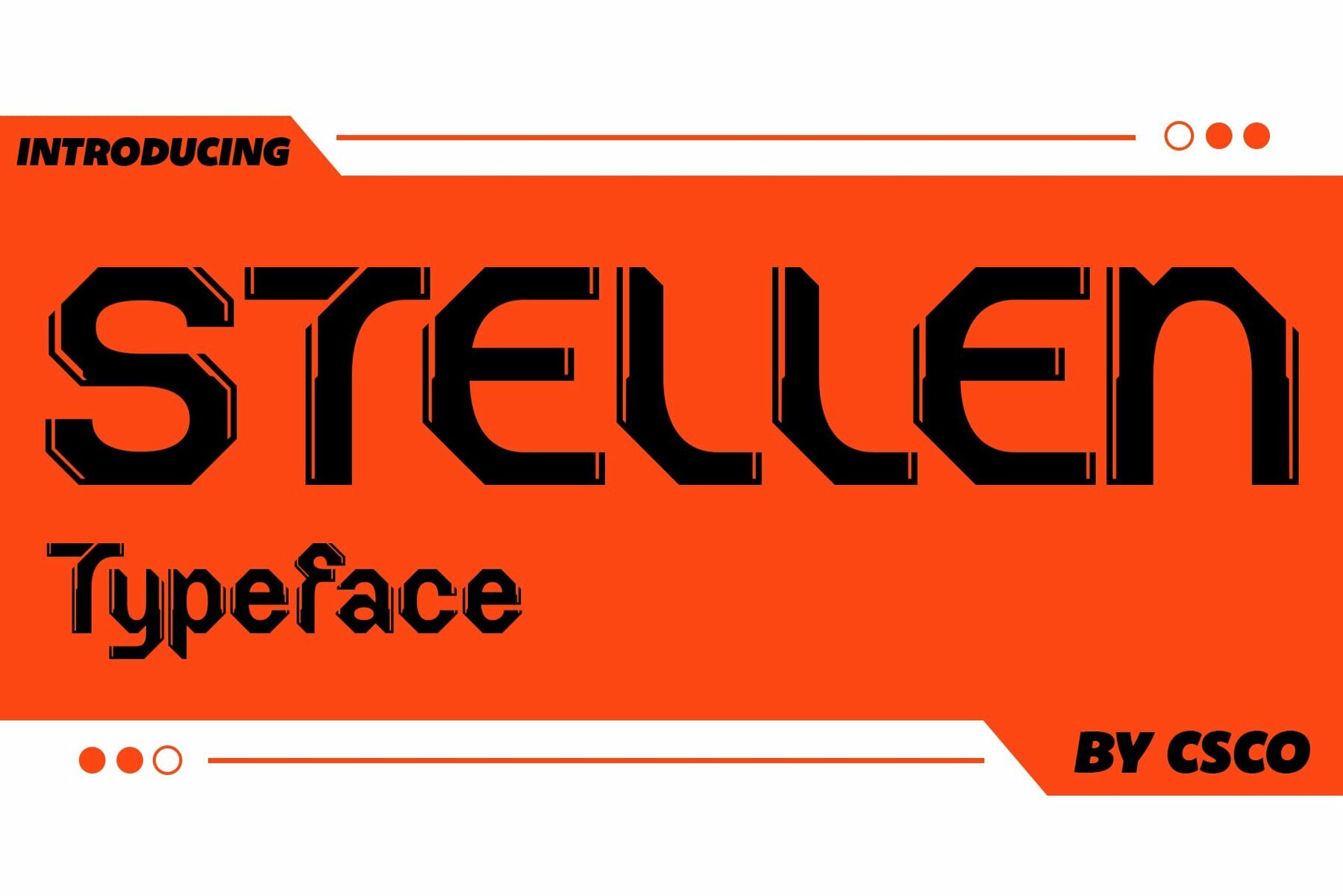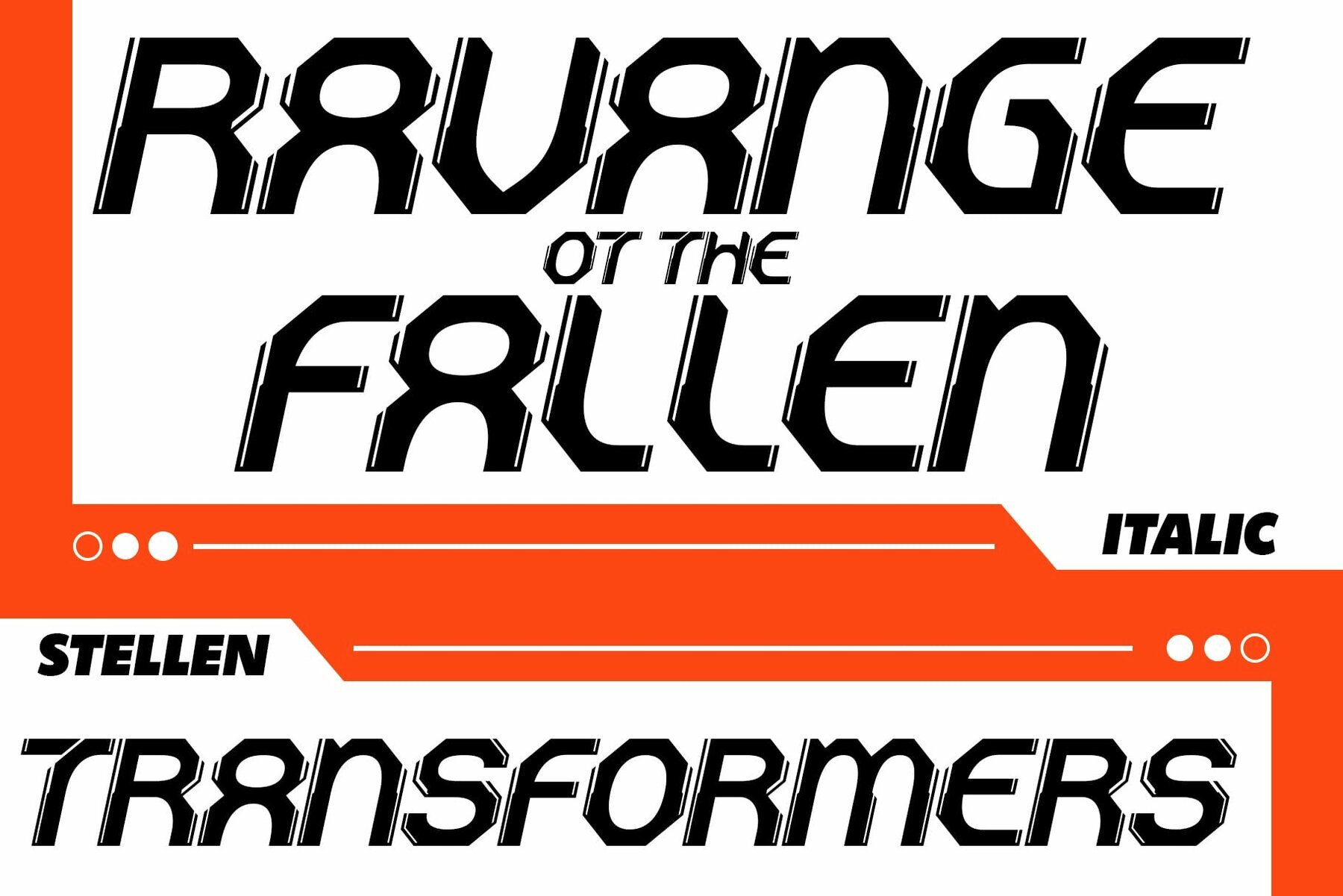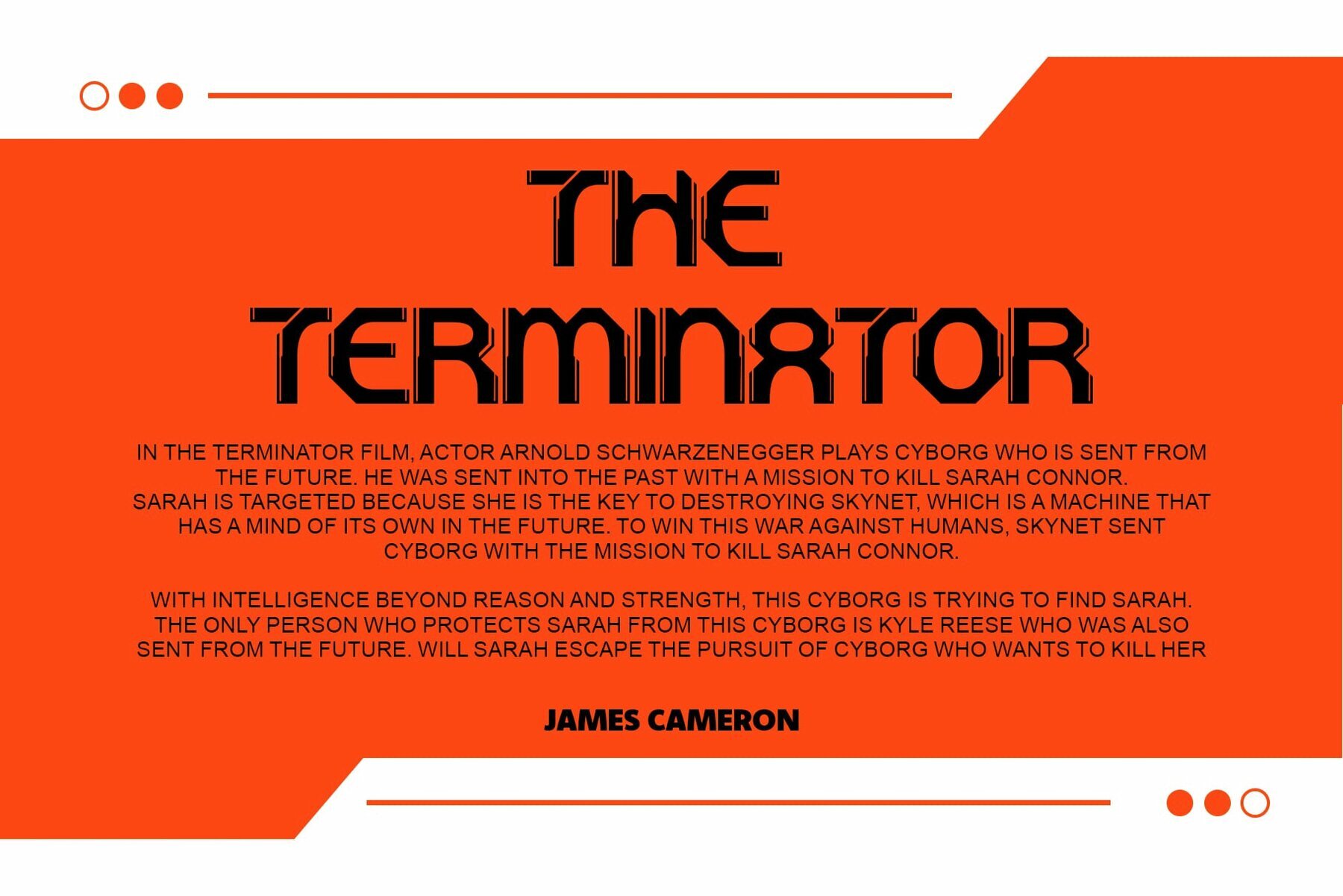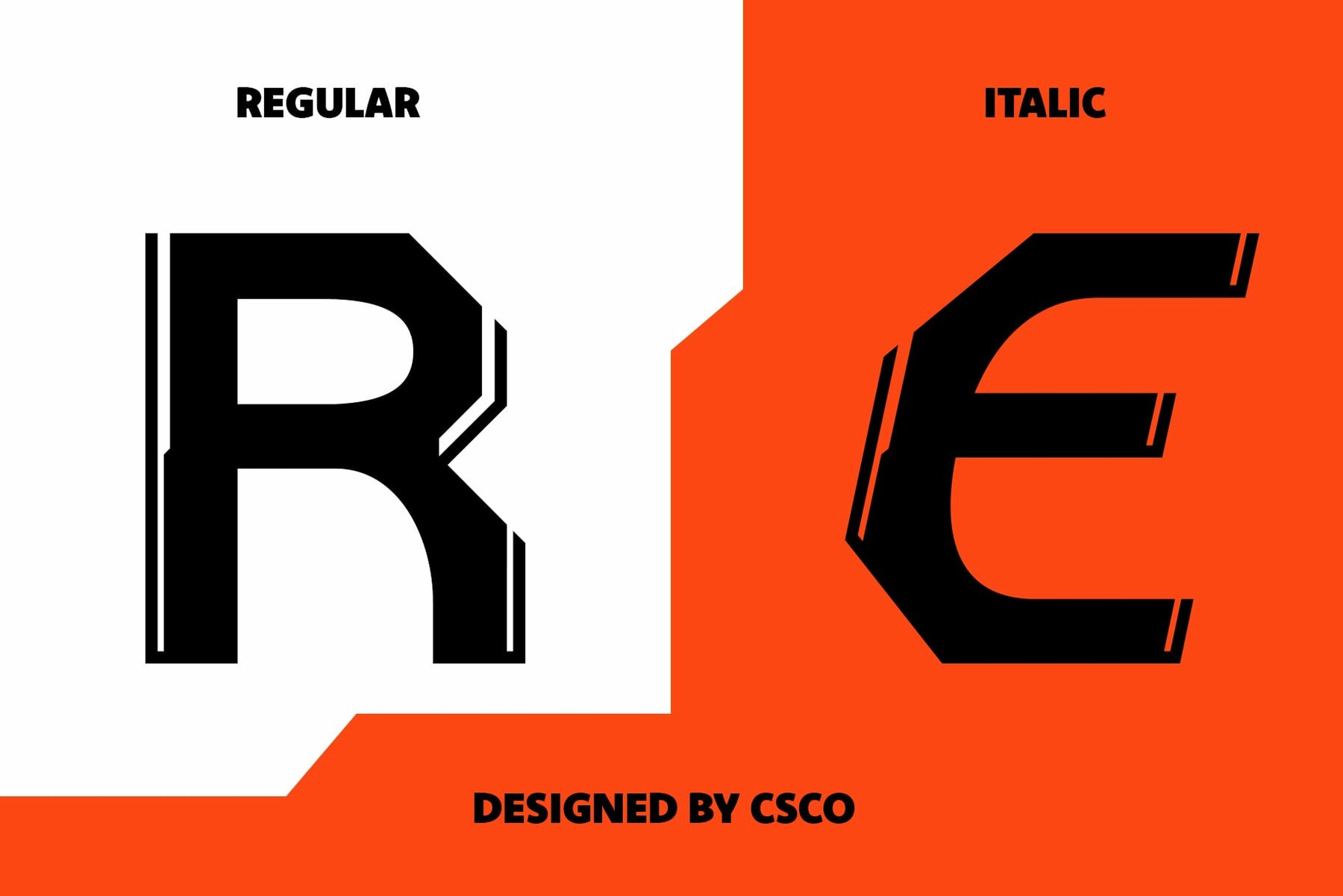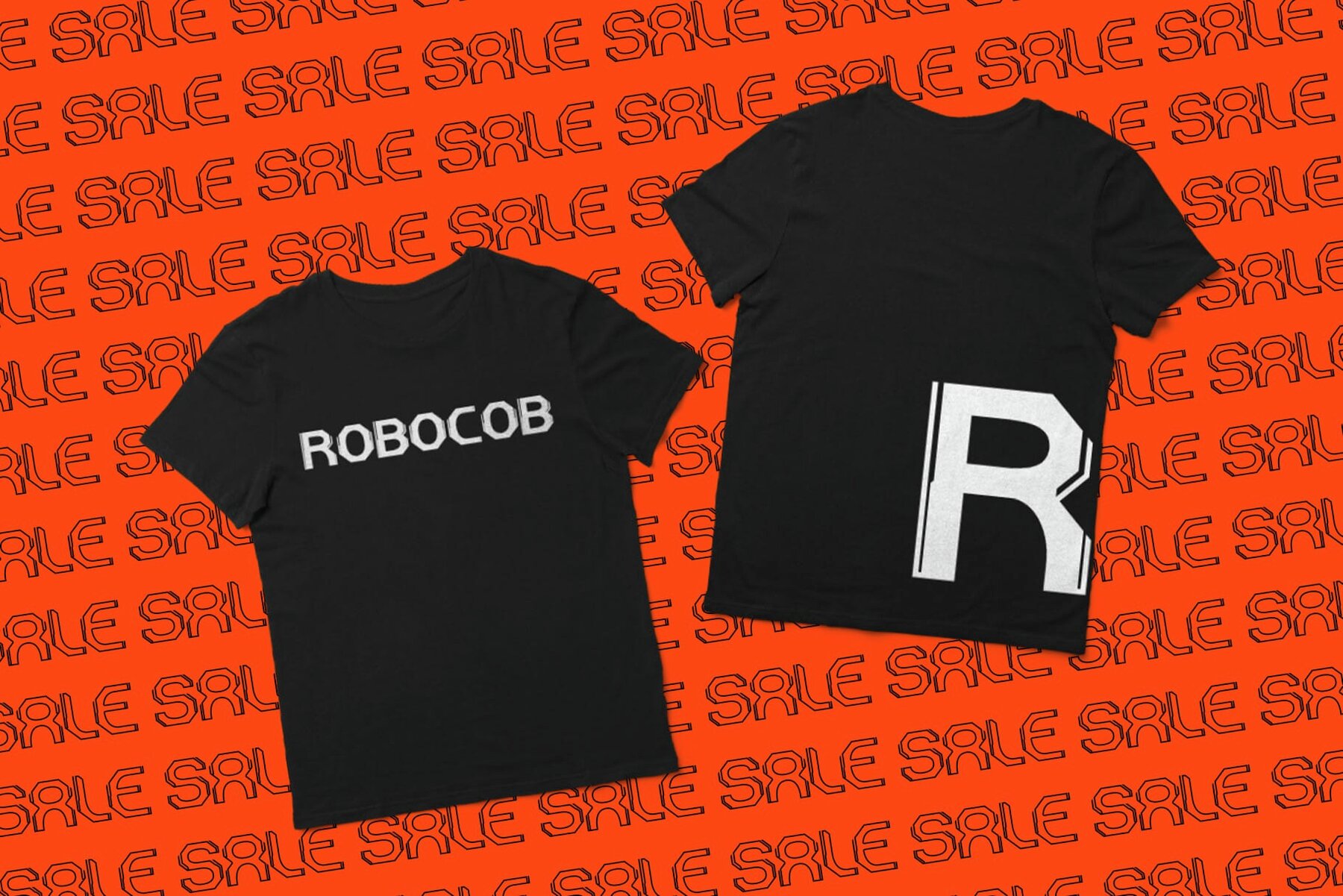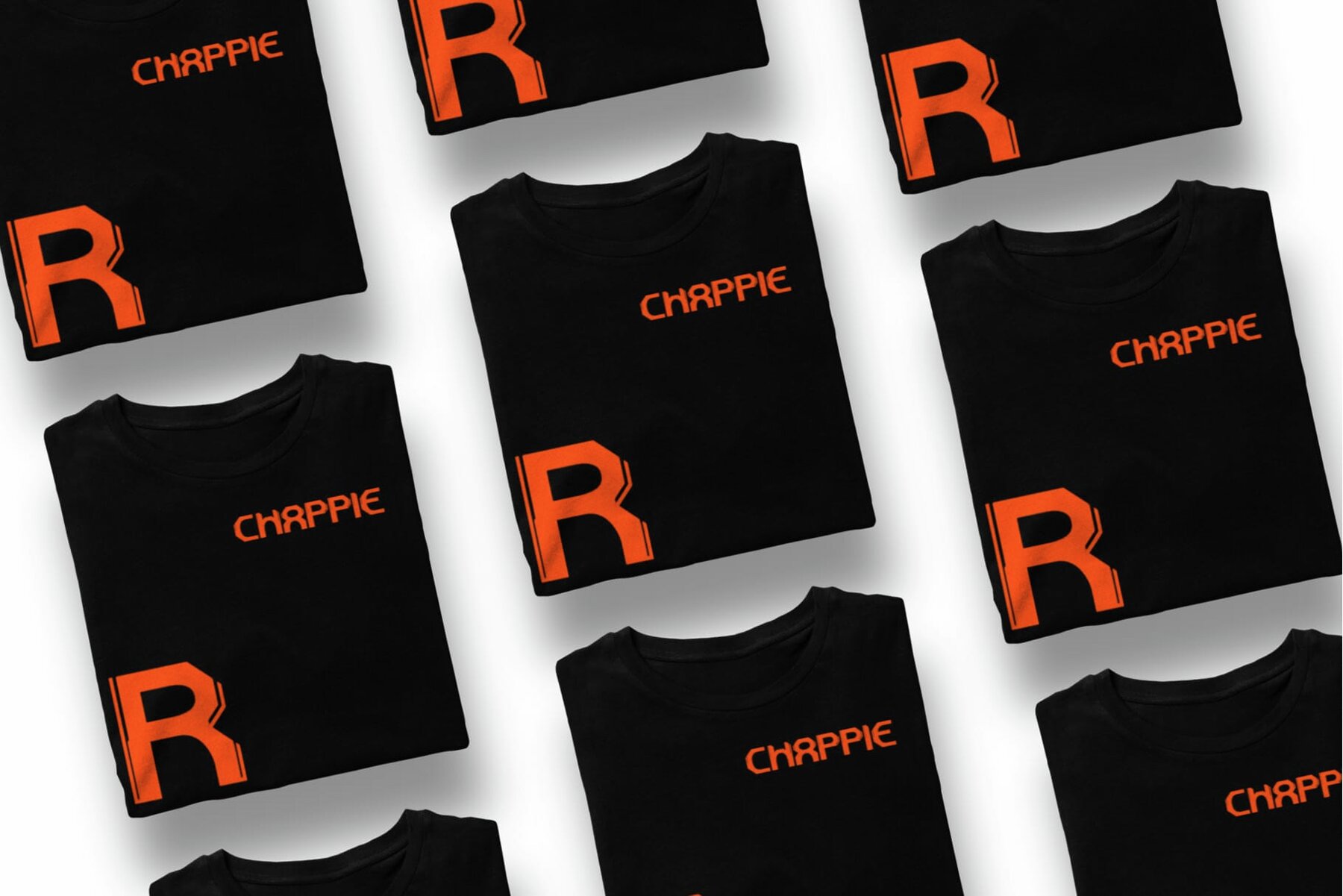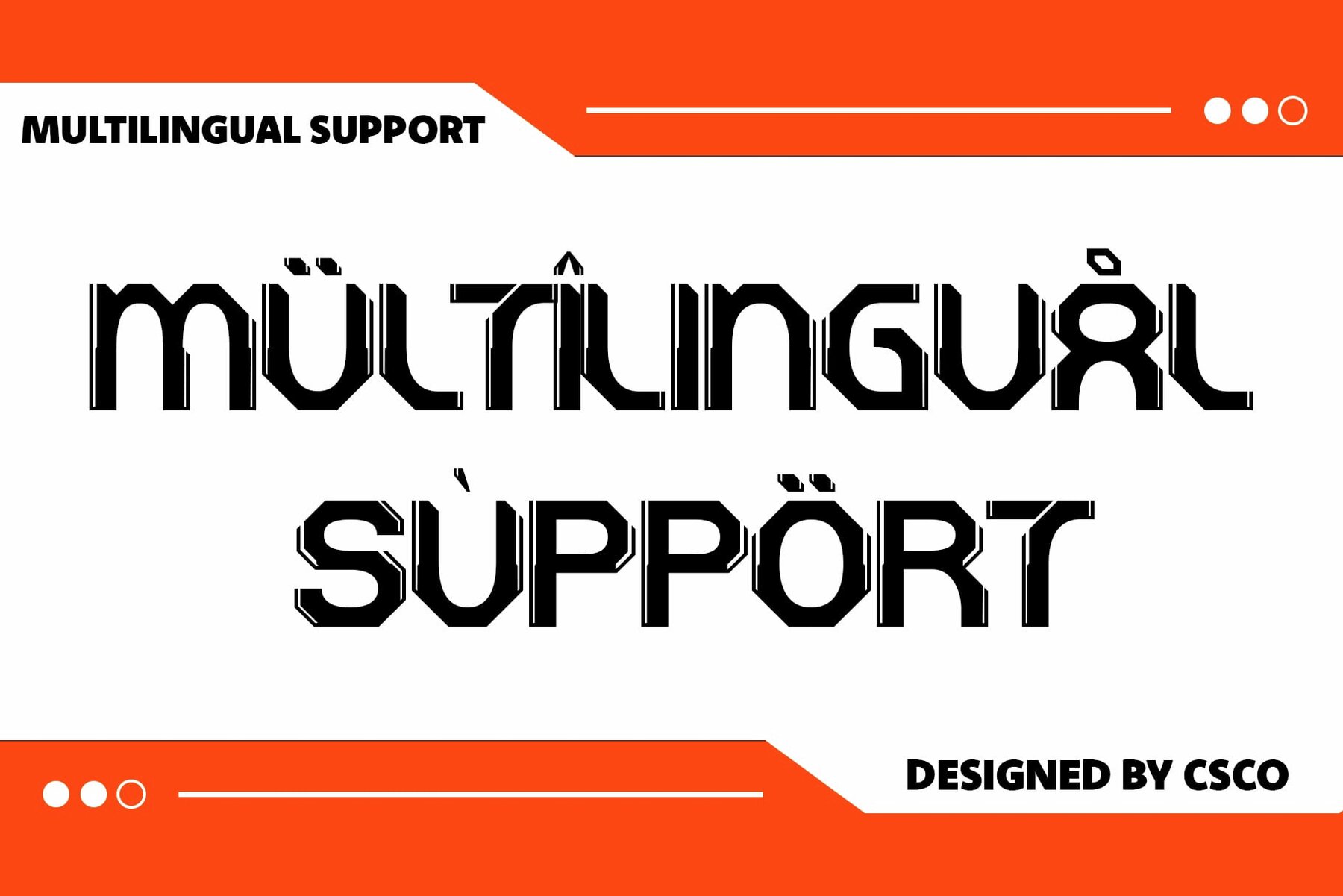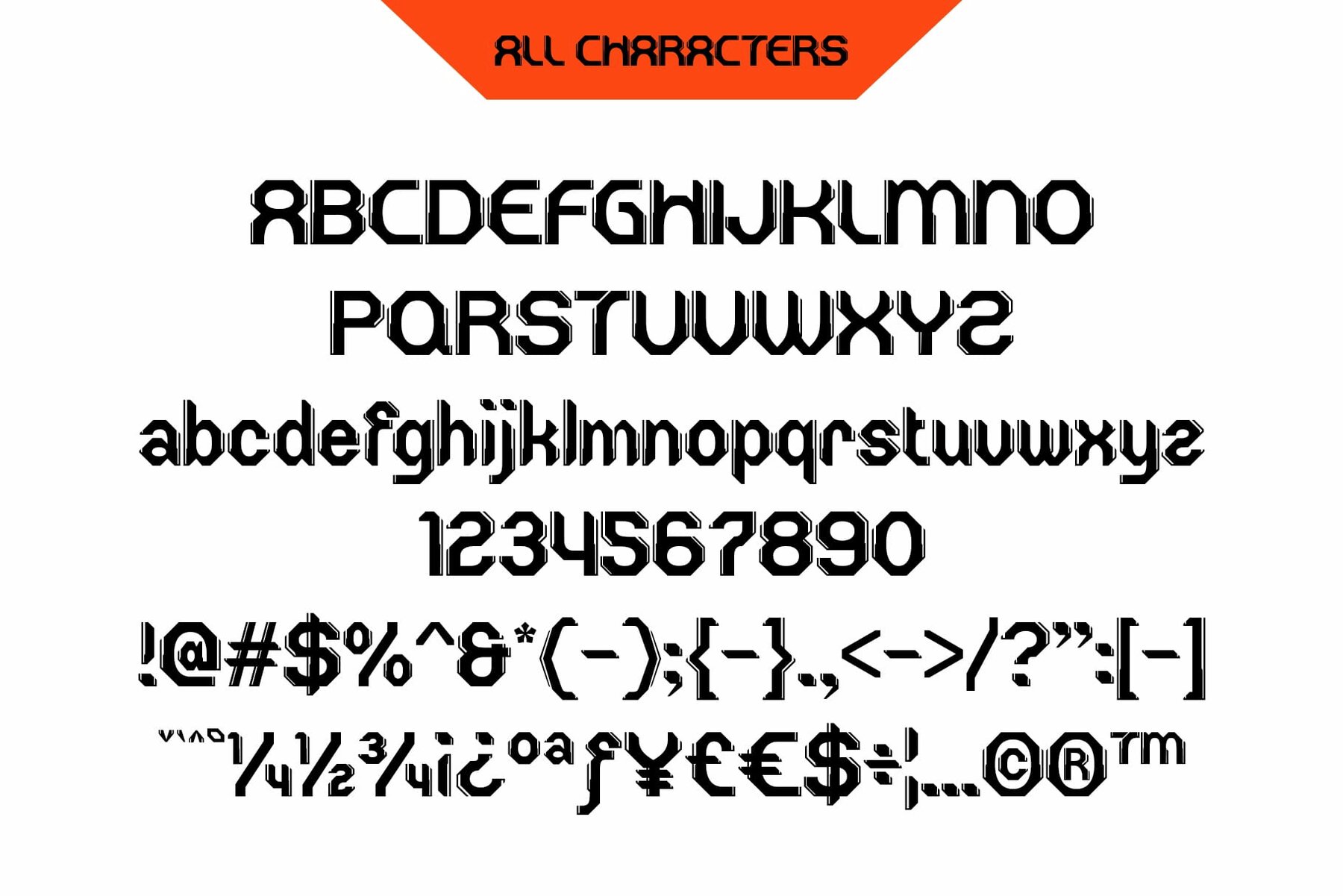
Stellen Font
Stellen is a cutting-edge font that envisions a world where humans and machines coexist harmoniously. Its sleek design embodies futuristic aesthetics, making it perfect for projects that focus on technological innovation. Stellen excels in projects that require a sense of technological advancement. Whether you're designing for sci-fi novels, tech blogs, or creating futuristic branding, this font captivates with its avant-garde charm. Despite its futuristic elements, Stellen's design is versatile. It's ideal for use in digital interfaces and poster designs, bringing a sci-fi touch to various creative projects. Stellen embodies innovation within typography, inviting designers to explore future possibilities. Embrace tomorrow's design potential and transcend traditional boundaries with Stellen's unique style. No specialized software is required to use this typeface. If you have any inquiries or need assistance, please feel free to contact us. Thank you for choosing Stellen to enhance your creative projects!Stellen: Futuristic Design Inspired by Cyborg Life
Innovative Design Elements
Ideal for Futuristic Projects
Versatile Application
Shaping the Future of Design